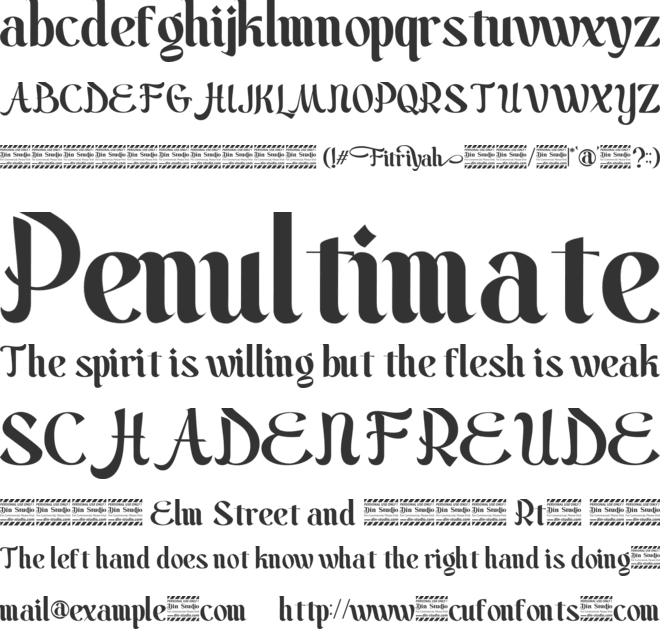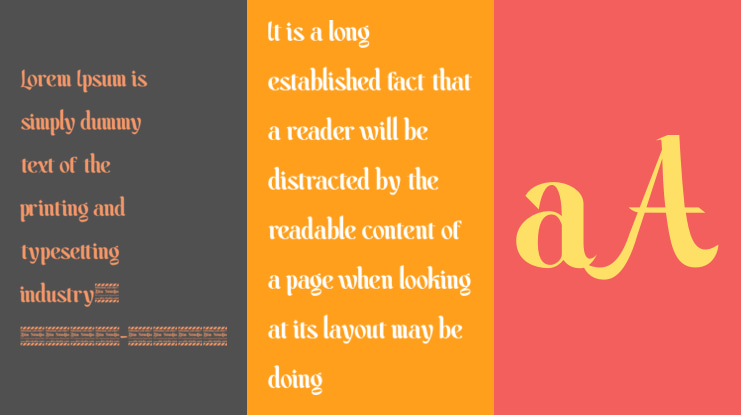
Introducing Fitriyah-A Display Font
Fitriyah was fully thought out to easily meld inside your designs. These fonts make a good foundation of what you want it to be! Discover the beauty in your own imagination while this font gives you a quick kickstart to what it can be. Wait no more, this beautiful font can be yours right now! This custom-made font was specifically designed to fit whatever you need! Perfect for social media posts and ads, printed quotes, t-shirt designs, packaging, or even as a modern text overlay to any background image.
Fitriyah includes Multilingual Options to make your branding globally acceptable.